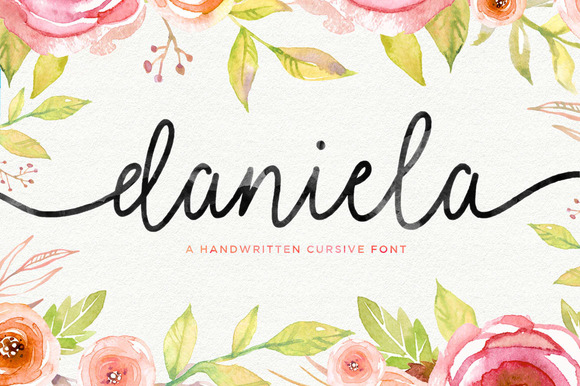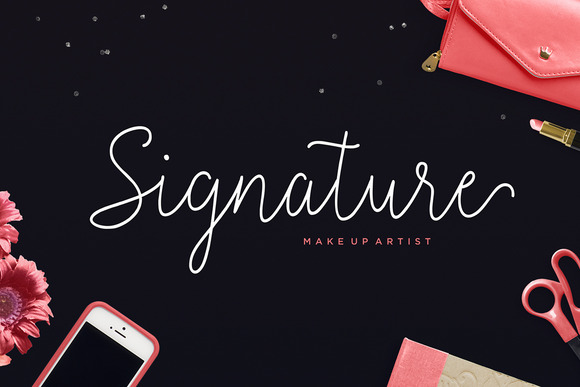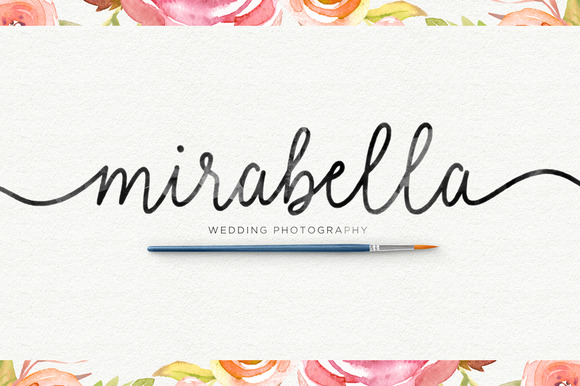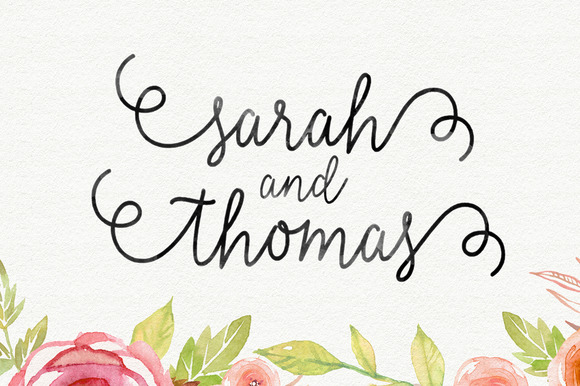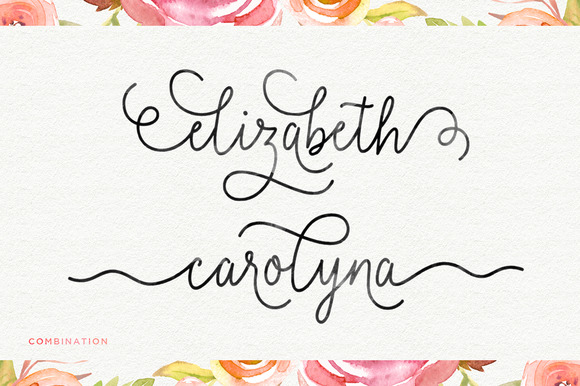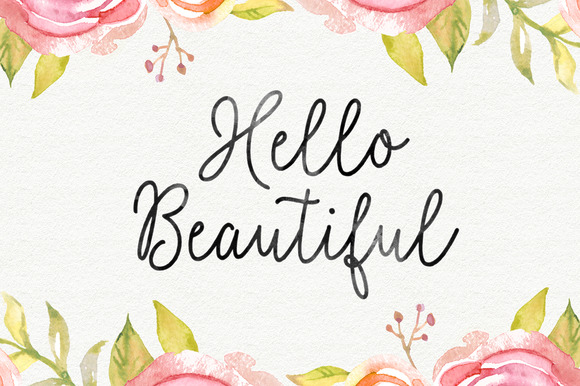
Daniela Script Font
About Daniela Script Font
Daniela script is a handwritten cursive font. It will give your design a modern and elegant touch. It can be used for various purposes such as headings, logos, invitations, t-shirt designs, greeting cards, posters, labels, book covers, brochures and much more!